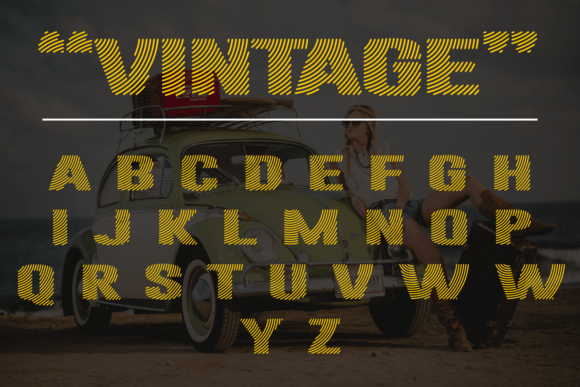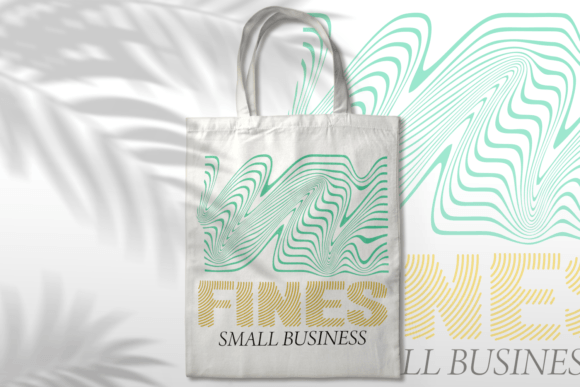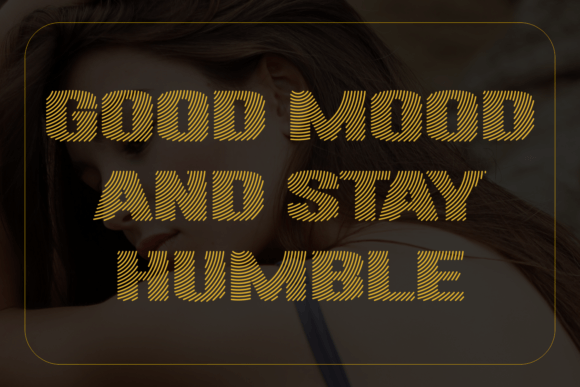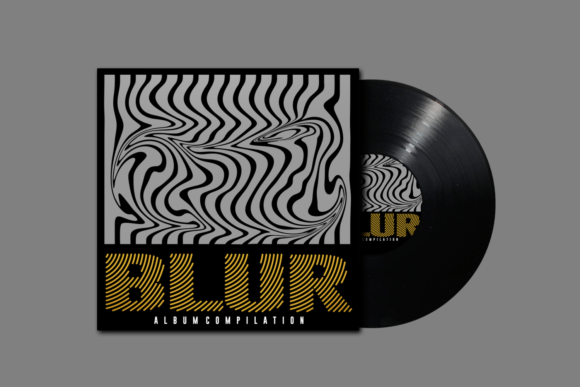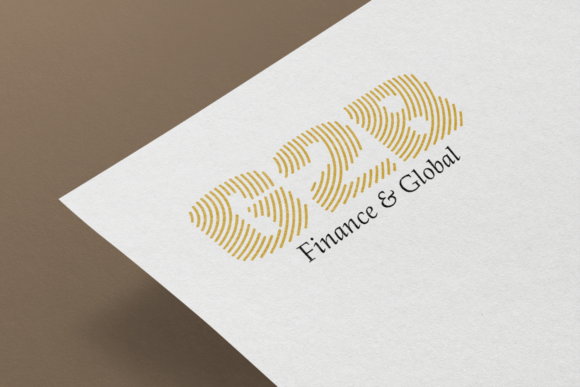
The Finger Print Font: A Decorative Twist on Typography
I still remember the design project that led me to discover the Finger Print Font. I was working on a book cover for a mystery novel, and I wanted a title font that would evoke a sense of intrigue and individuality. As I scrolled through font libraries, I stumbled upon this unique font, and it instantly caught my attention. Each letter was adorned with fingerprints, giving it a distinctive and organic appearance. I was hooked!
- ✨ Unique and eye-catching design: The fingerprints on each letter add a touch of personality to any design.
- ✅ Versatile: Suitable for various applications, from book covers to event invitations.
- 💡 Sparks curiosity: The use of fingerprints invites interpretation and can lead to interesting conversations.
While I love the Finger Print Font, there are a few things to keep in mind:
- ⚠️ Limited legibility: The fingerprints can make some letters harder to read, especially at small sizes.
- 🤔 Limited font pairing options: The font’s unique design may not pair well with all font combinations.
The Finger Print Font was inspired by the idea of individuality and human touch. The designer wanted to create a font that would evoke a sense of curiosity and interpretation. By incorporating fingerprints into the design, the font becomes a conversation starter and a unique identifier.
| Font Name | Finger Print Font |
| Author | Dreamink (7ntypes) |
Q: What is the Finger Print Font?
A: The Finger Print Font is a decorative font with fingerprints on letters, creating a distinctive and organic appearance.
Q: Is Finger Print Font suitable for body text?
A: No, Finger Print Font is best used for headlines or titles, as the fingerprints can make it harder to read at small sizes.